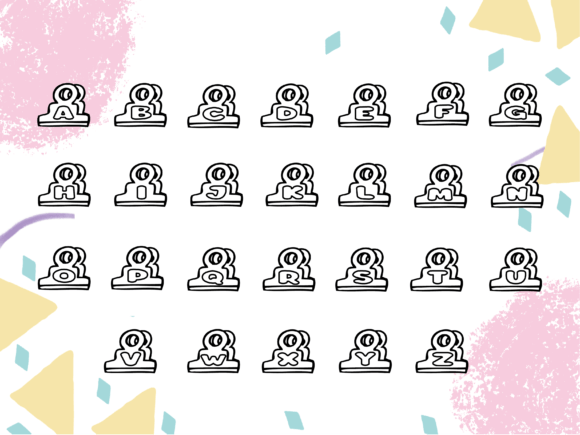
Introducing Clip Doodles Font: The Ultimate Decorative Font for Designers and Crafters
Are you a designer or crafter looking for a font that can add a touch of fun and personality to your projects? Look no further than Clip Doodles Font! This decorative font is perfect for creating a wide range of designs, from stickers and posters to planners and more. With its friendly vibe and playful style, Clip Doodles Font is sure to become a favorite in your design arsenal.
What is Clip Doodles Font?
Clip Doodles Font is a unique and creative font that is designed to add a touch of whimsy and fun to your designs. Its decorative style is perfect for creating eye-catching and engaging designs that are sure to stand out. Whether you’re working on a project for a client or creating something for your own personal use, Clip Doodles Font is a great choice.
Key Features of Clip Doodles Font
- Fun and playful style: Clip Doodles Font has a friendly and approachable vibe that’s perfect for creating designs that are fun and engaging.
- Decorative style: This font is designed to add a touch of personality and whimsy to your designs, making it perfect for creating eye-catching and memorable designs.
- Versatile: Clip Doodles Font can be used for a wide range of design projects, from stickers and posters to planners and more.
Uses for Clip Doodles Font
Clip Doodles Font is a versatile font that can be used for a wide range of design projects. Here are some ideas to get you started:
- Stickers: Use Clip Doodles Font to create fun and colorful stickers that are perfect for decorating journals, laptops, and more.
- Posters: Create eye-catching posters for events, promotions, or just for fun using Clip Doodles Font.
- Planners: Add a touch of personality to your planners and organizers with Clip Doodles Font.
- Social media graphics: Use Clip Doodles Font to create engaging social media graphics that are sure to stand out.
Tips for Using Clip Doodles Font
Here are some tips for getting the most out of Clip Doodles Font:
- Experiment with different colors: Clip Doodles Font looks great in a variety of colors, so don’t be afraid to experiment and find the perfect color for your design.
- Mix and match with other fonts: Clip Doodles Font pairs well with a variety of other fonts, so try mixing and matching it with other fonts to create a unique look.
- Use it for headings and titles: Clip Doodles Font is perfect for headings and titles, so use it to add a touch of personality to your designs.
| Font Name | Clip Doodles Font |
| Author | Happy Bamboo |
Clip Doodles Font is a fun and interesting decorative font that’s perfect for designers and crafters. Its friendly vibe and playful style make it a great choice for creating a wide range of designs, from stickers and posters to planners and more. With its versatility, ease of use, and range of uses, Clip Doodles Font is sure to become a favorite in your design arsenal.